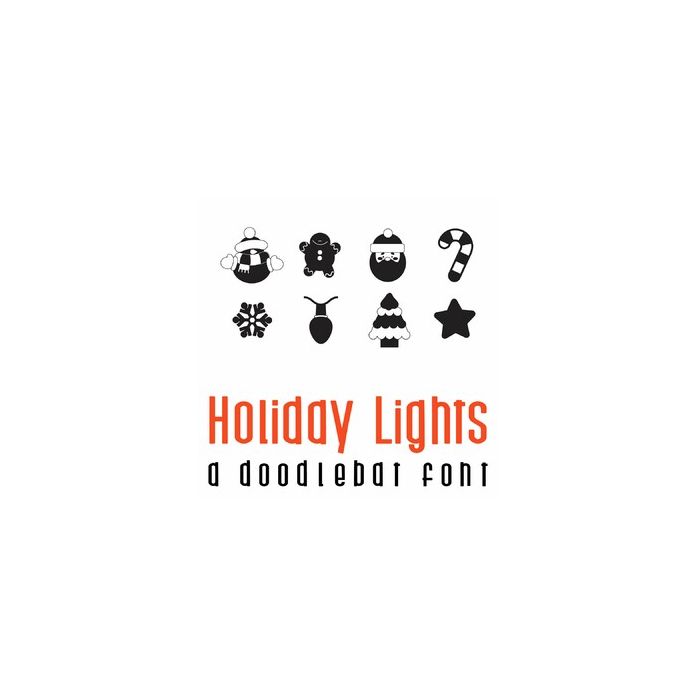
This fun doodlebat font features 26 adorable Christmas images, lights, and more. Perfect for cards, crafts, gifts, decor, scrapbook pages, planner stickers and more!